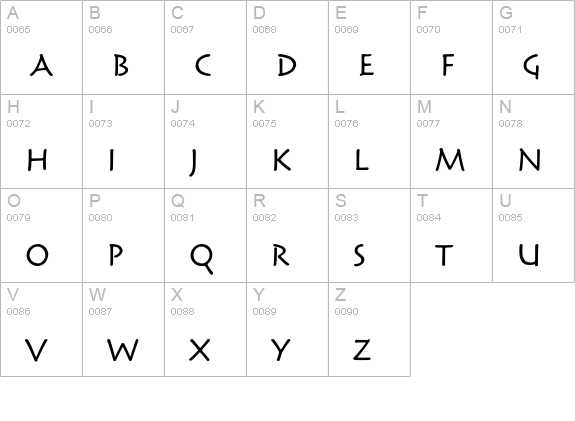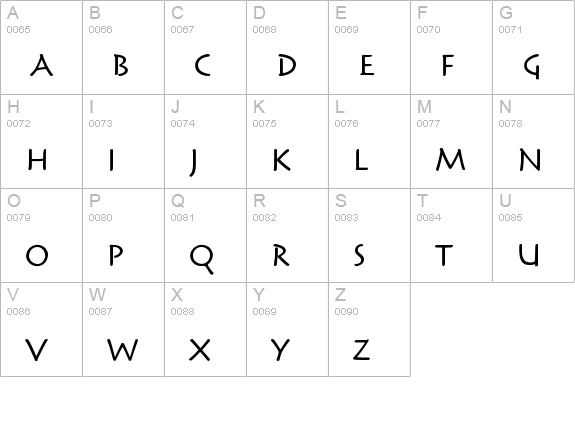
Reliq Std Calm Font Details
Reliq Std Calm font is a stunning typeface that exudes tranquility and elegance. Its gentle curves and clean lines create a sense of calmness, making it perfect for projects that aim to convey a serene and peaceful ambiance. This font effortlessly blends modernity with a touch of sophistication, making it suitable for a wide range of design applications. With its versatile nature, Reliq Std Calm font can be used for various design projects, such as branding, logos, invitations, packaging, and more. Its simplicity and legibility make it highly readable across different mediums, ensuring that your message is conveyed effectively. One of the best things about Reliq Std Calm font is that it is freely available to download at FontsMarket.com. This means that you can easily access and use this beautiful typeface without any hassle. Whether you're a professional designer or a casual user, having this font in your collection will undoubtedly enhance your creative endeavors. So why wait? Experience the serene beauty of Reliq Std Calm font today by downloading it for free at FontsMarket.com. Begin adding a touch of tranquility and elegance to your designs and watch them come to life with this exceptional typeface.